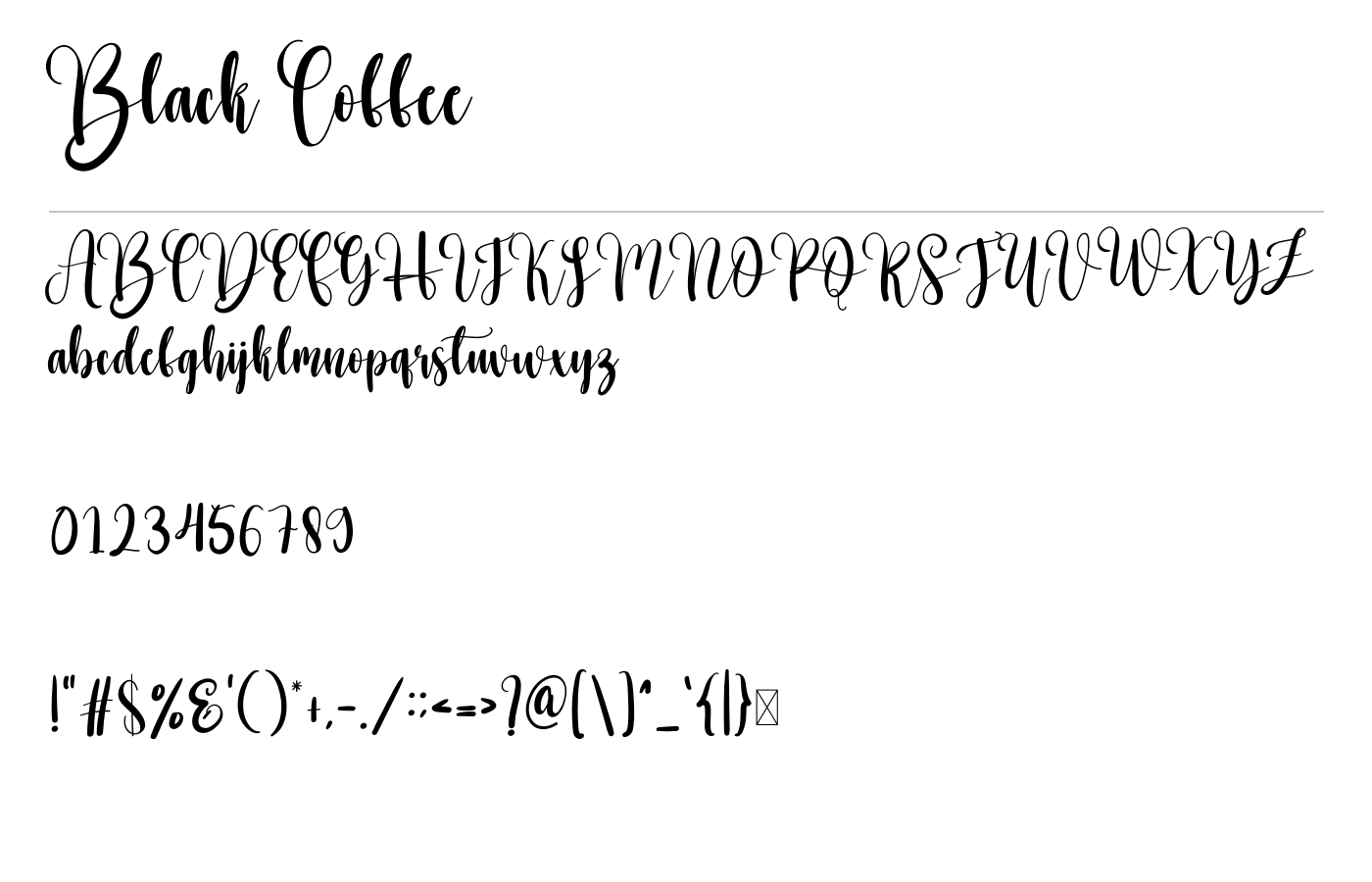
Black Coffee is a charming script font with a playful yet elegant character, featuring smooth, flowing strokes and a mix of thick and thin contrasts. Its lively uppercase letters and bold lowercase forms create a friendly, approachable feel, making it perfect for branding, invitations, and creative projects that want a personal, handcrafted touch. This font works beautifully in logos, packaging, and headlines where warmth and style are key.
Black Coffee Font